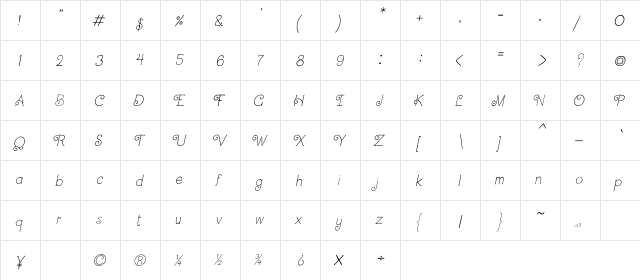
CRU-Dissaramas-Italic Italic
Design Context for CRU-Dissaramas-Italic Typeface
CRU-Dissaramas-Italic is a composed and adaptable typeface that performs quietly and consistently across a wide range of design contexts. The dynamic lean of this cut emphasises speed and emphasis in any layout.
Pro Tip: Try CRU-Dissaramas-Italic for annotation and caption copy alongside an upright companion — the contrast in angle creates a dynamic but ordered typographic system.